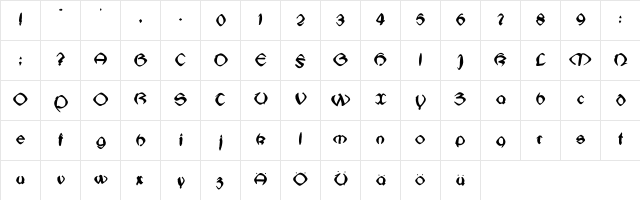
JugendstilFS Regular
Design Context for JugendstilFS Typeface
JugendstilFS is a composed and adaptable typeface that performs quietly and consistently across a wide range of design contexts.